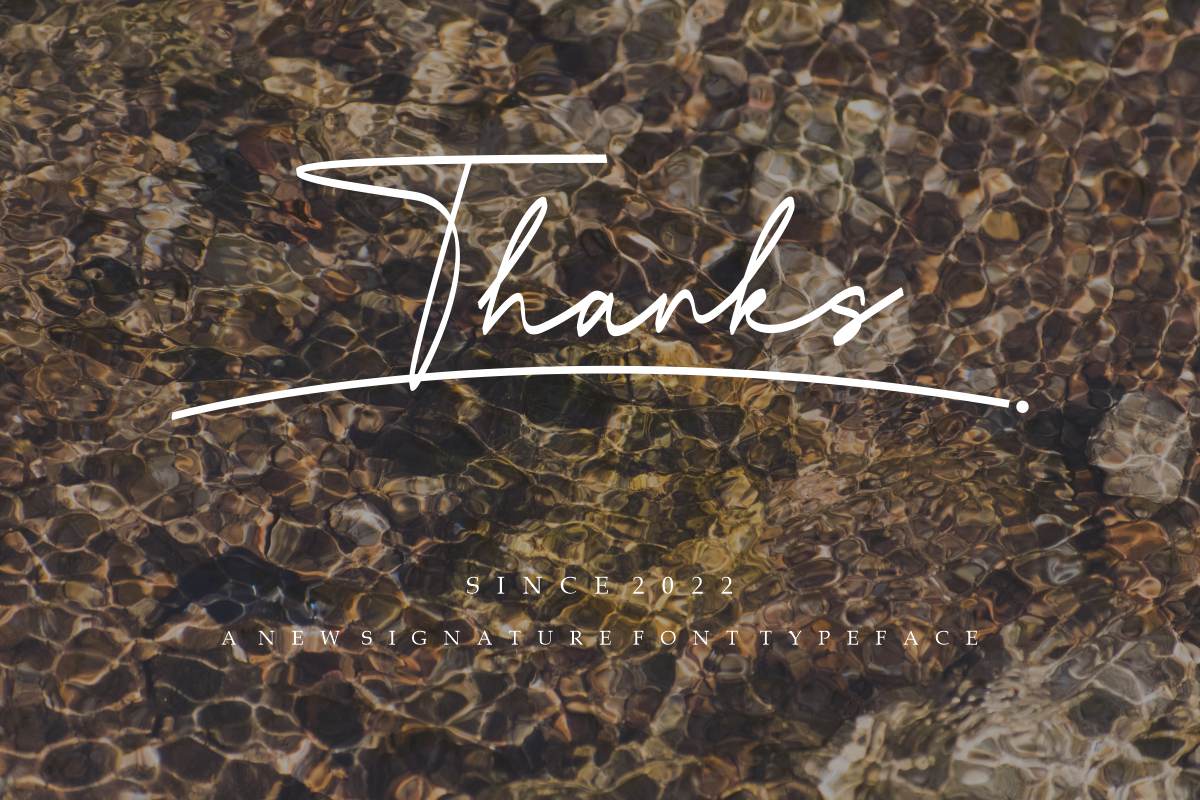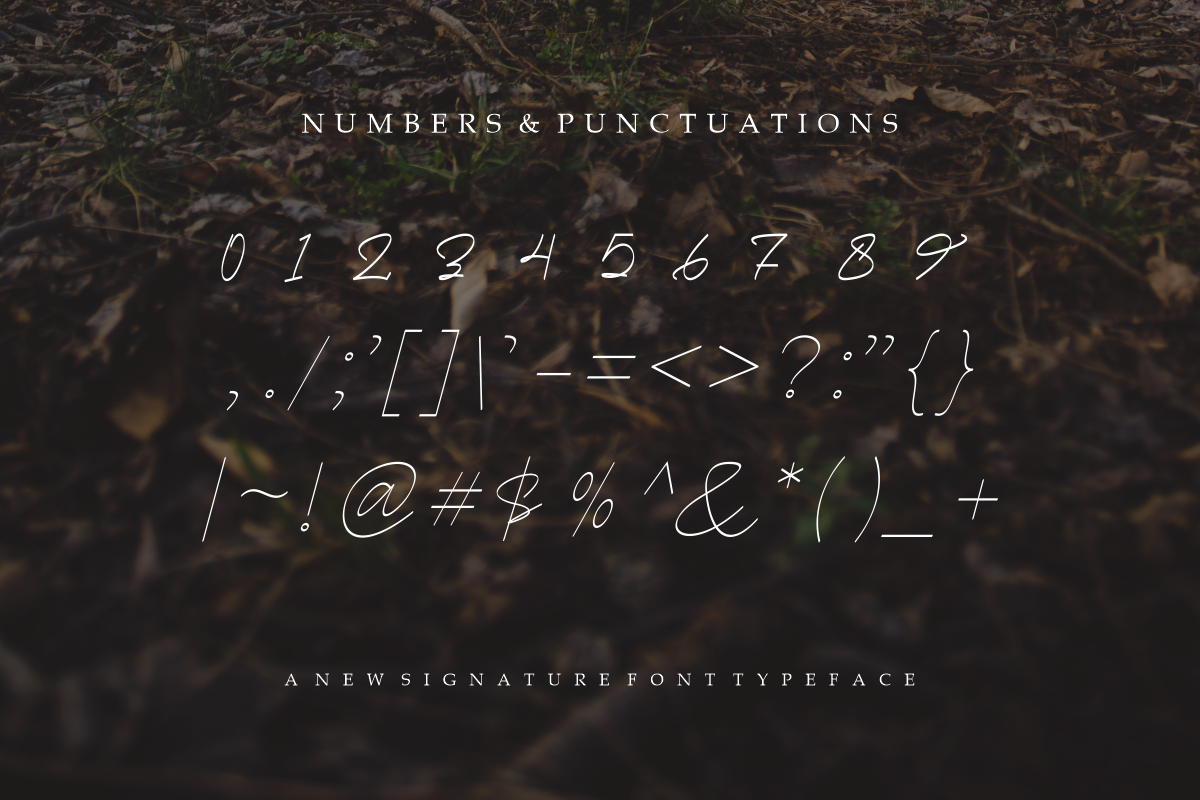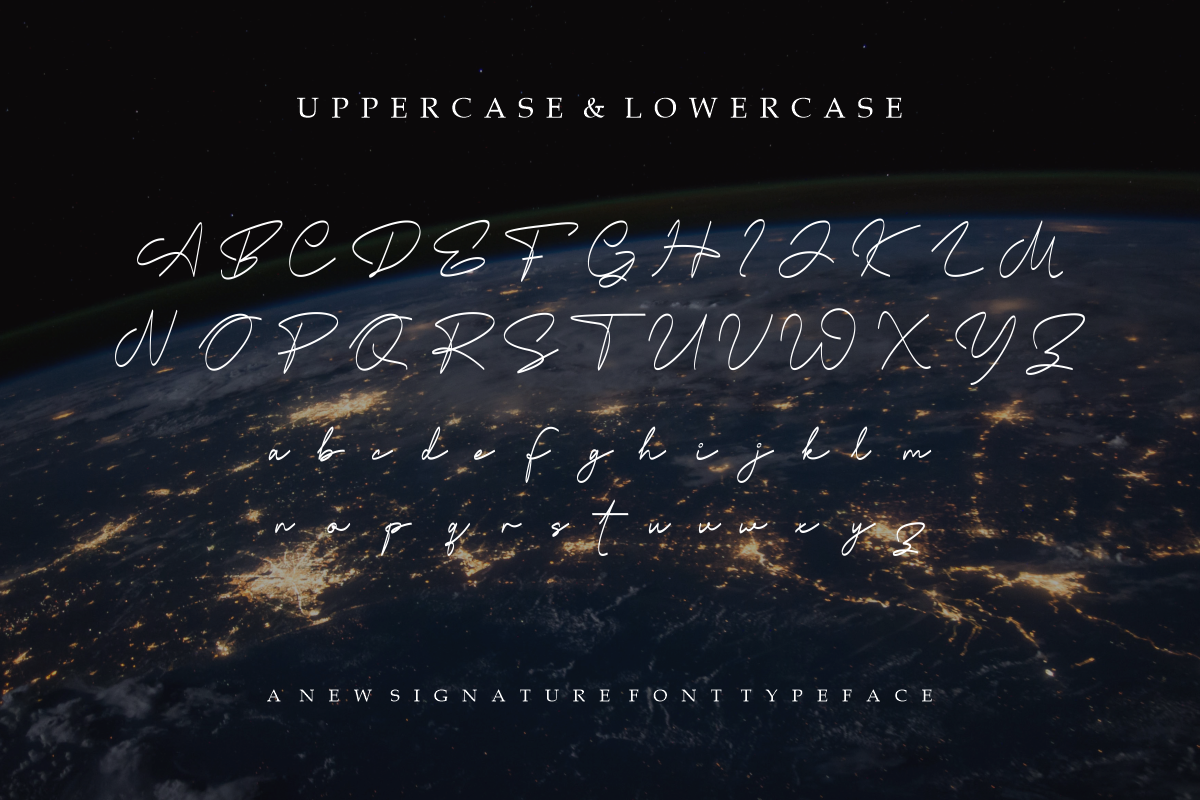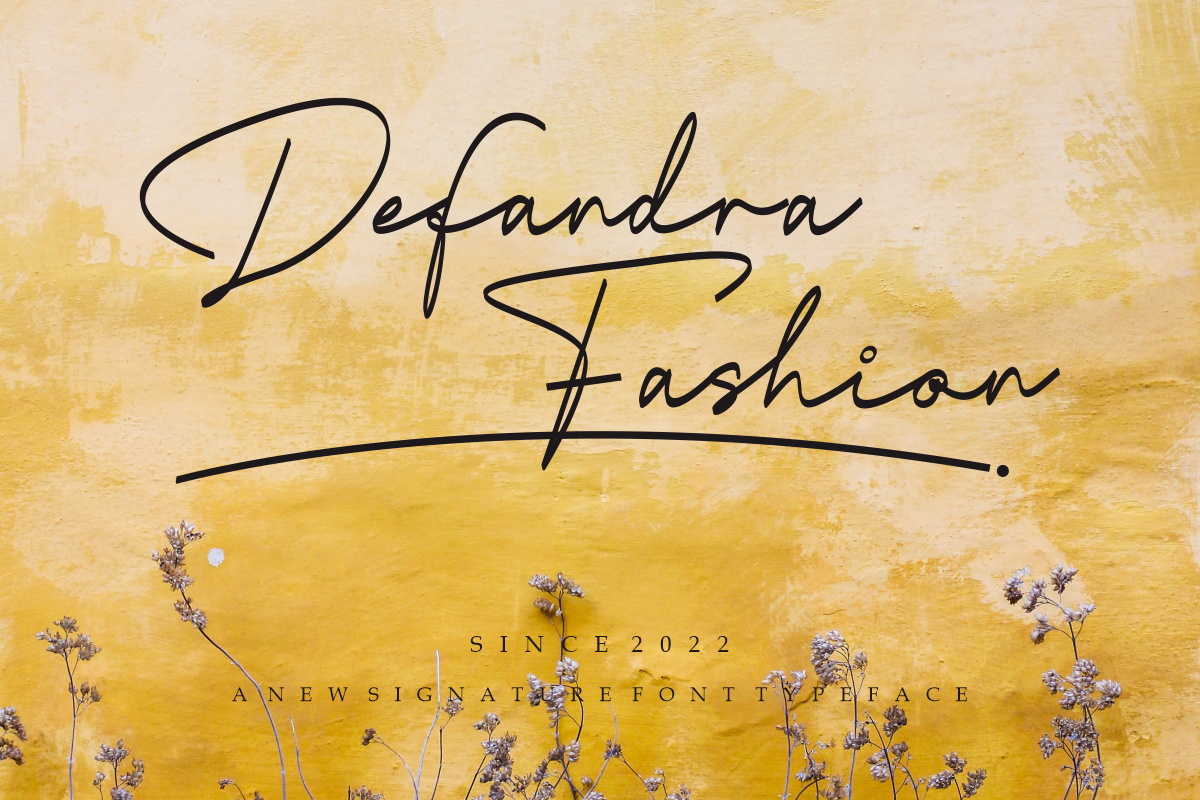
MastChildSignature
MastChildSignature– Sckrip Font is a simple, elegant and authentic serif font. It can easily be matched to an incredibly large set of projects, so add it to your creative ideas and notice how it makes them stand out!